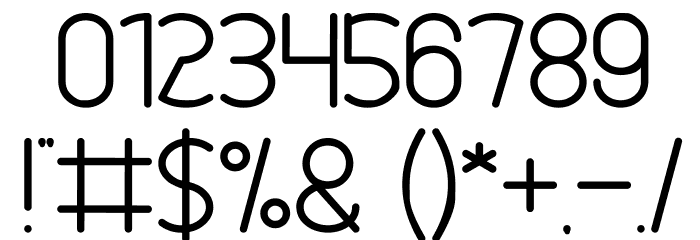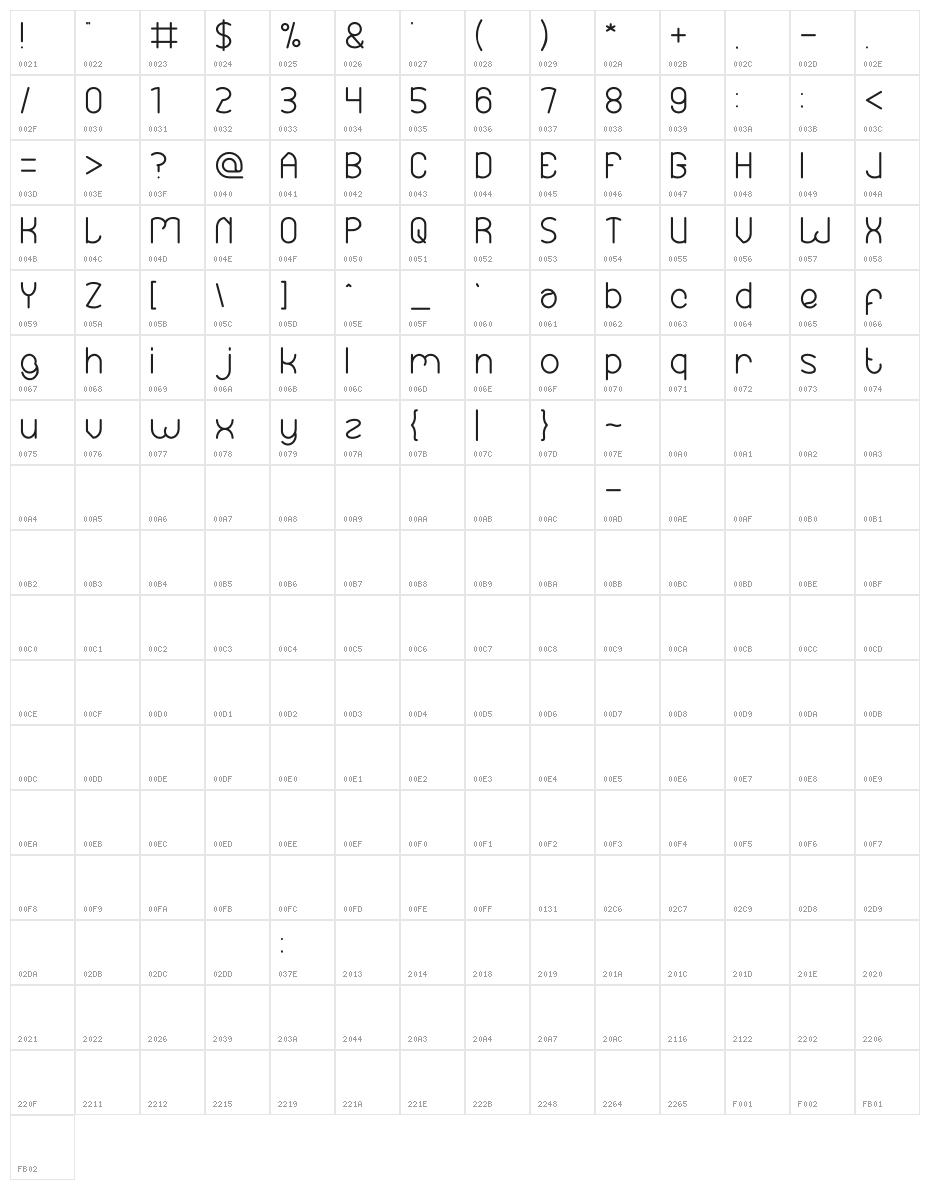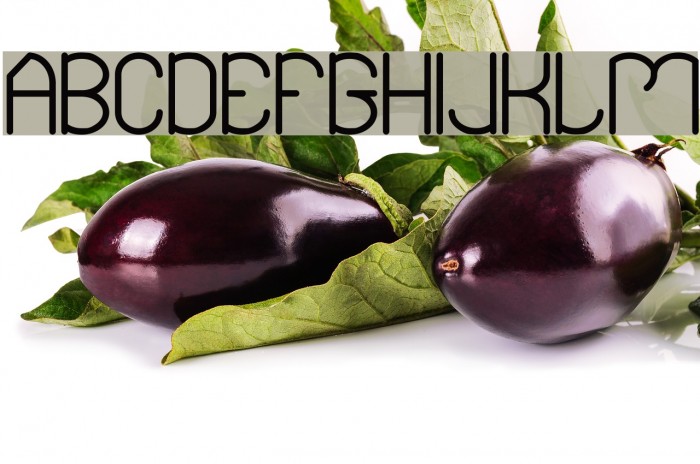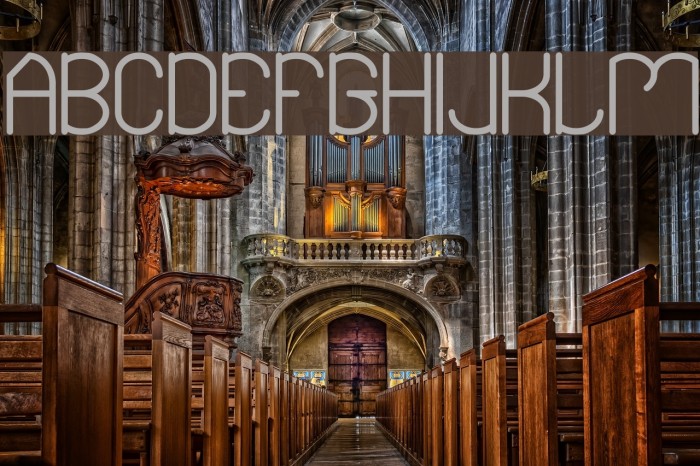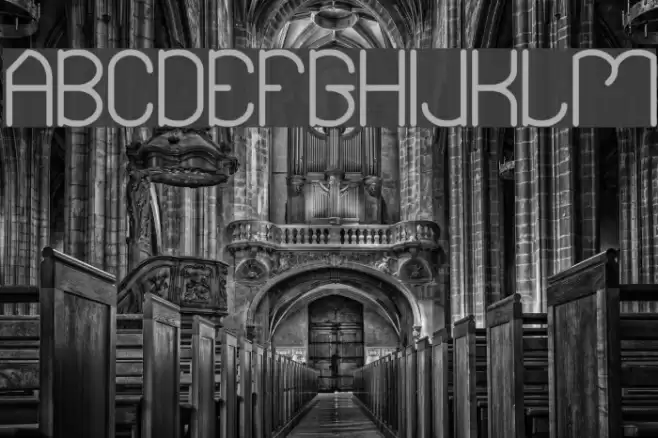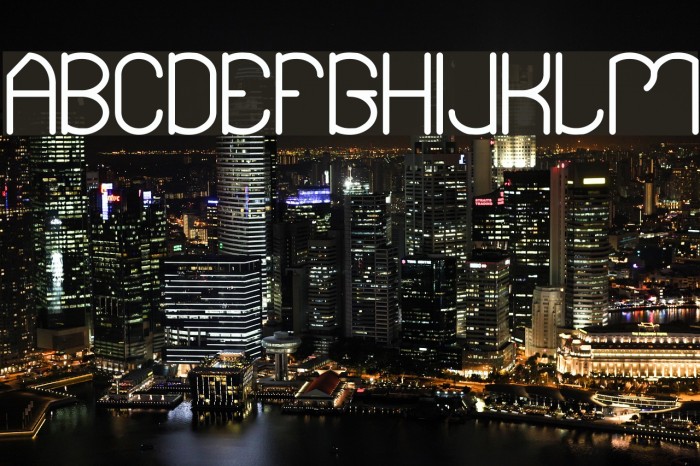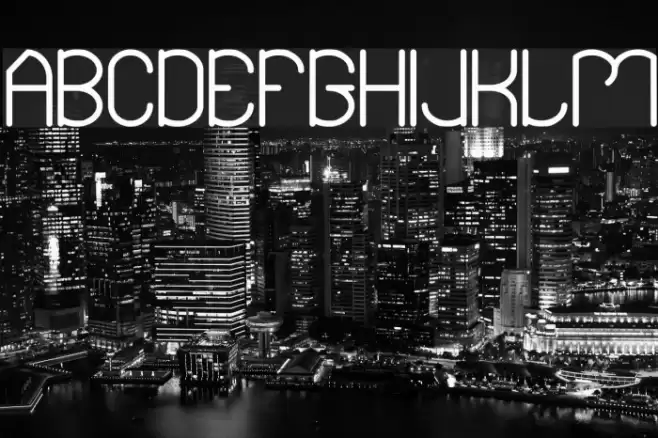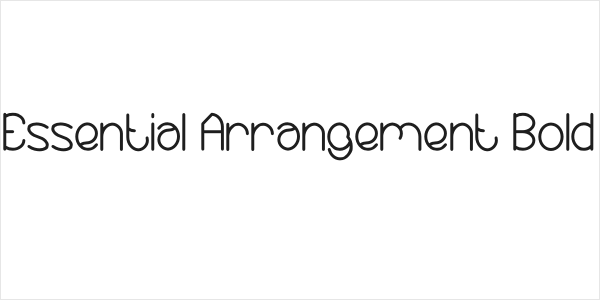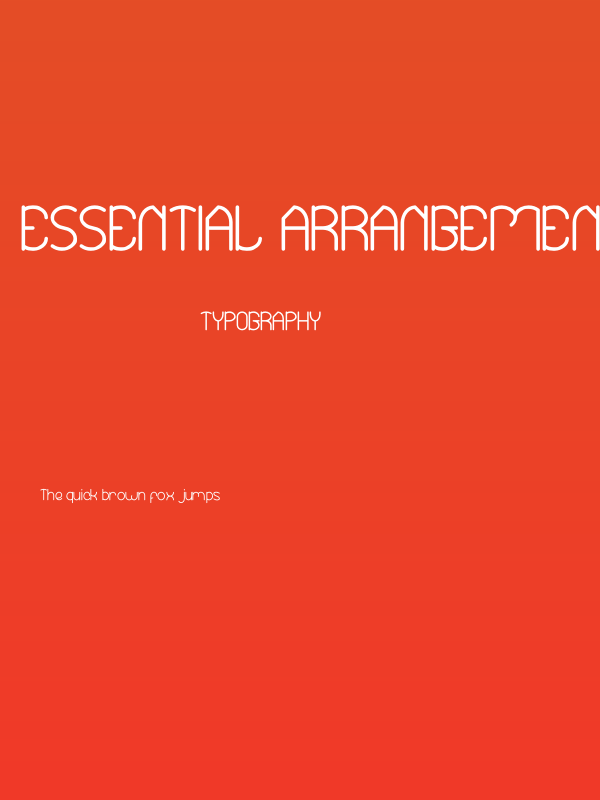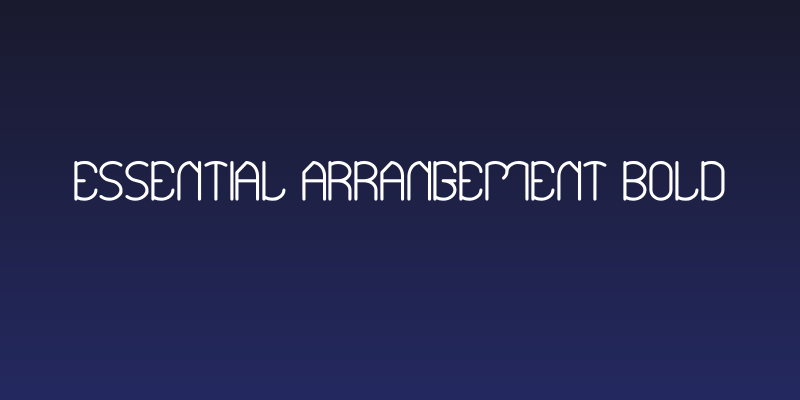
Essential Arrangement Bold Font
Essential Arrangement Bold Description
This font features a modern and sleek design with rounded edges and a consistent stroke width, giving it a clean and contemporary look. The uppercase and lowercase letters maintain a uniform height, creating a harmonious appearance. The numerals are distinct and easy to read, while the special characters blend seamlessly with the overall style. The font's geometric shapes and smooth curves make it ideal for projects that require a minimalist and stylish aesthetic. Its legibility and unique character make it suitable for a variety of design applications.